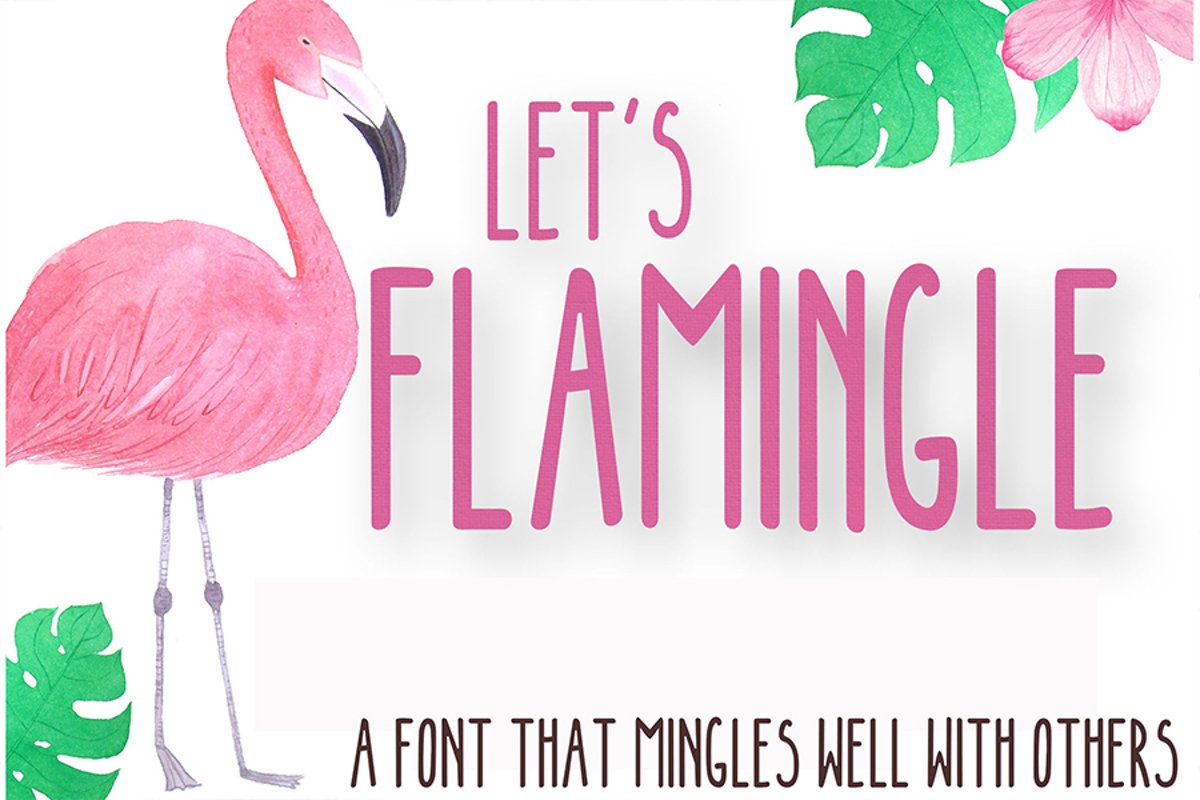
LET'S FLAMINGLE FONT
FLAMINGLE
LET'S FLAMINGLE is an all caps, adorable statement font that can be used to make anything and it will look amazing
The font is perfect for worksheet, bulletin boards and cutting with your Cutter.
One of the things that is very different about this font is that is was originally designed to be cut with a machine like Cricut.  You will get the letters in OTF and SVG.